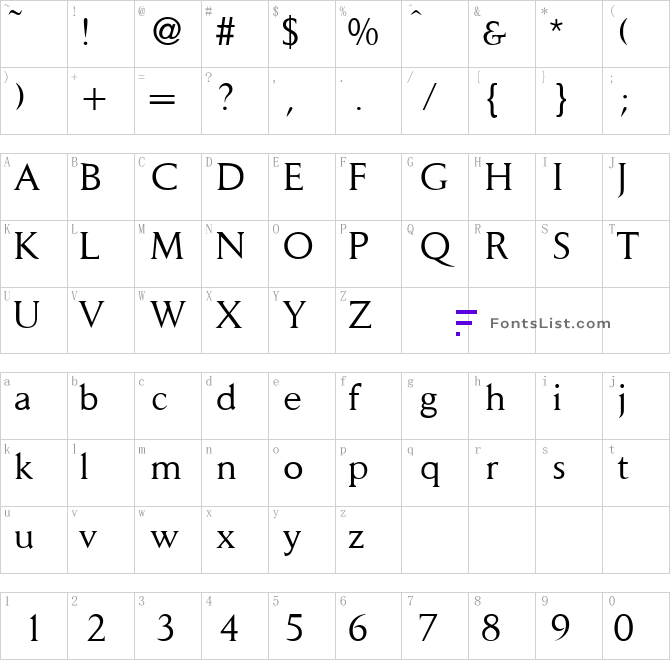
- Font Name:DaitonaDB
DaitonaDB-Normal.ttf is a very beautiful artistic font, DaitonaDB-Normal.ttf is widely used in the design and printing of various books and pictures,DaitonaDB-Normal.ttf has a strong visual impact,DaitonaDB-Normal.ttf is a commonly used font in newspapers, magazines and books, and is used in posters, e-commerce Poster design, store design, logo design, font design and other fields.DaitonaDB-Normal.